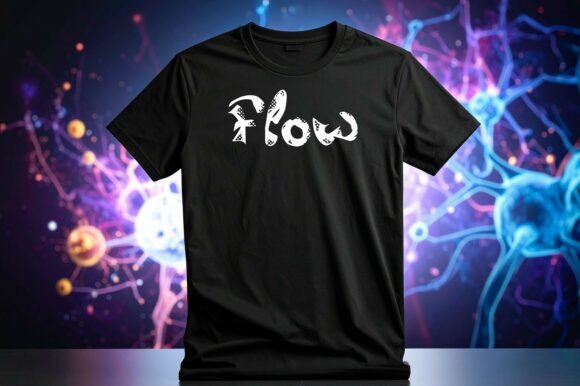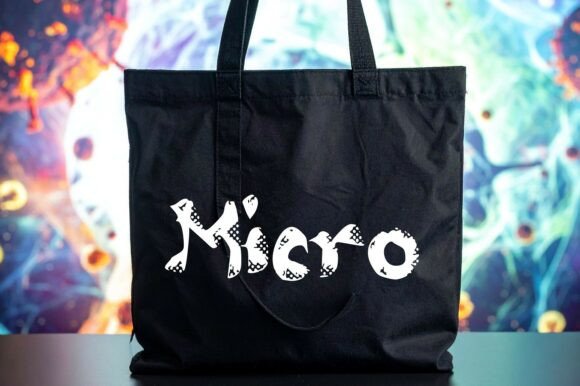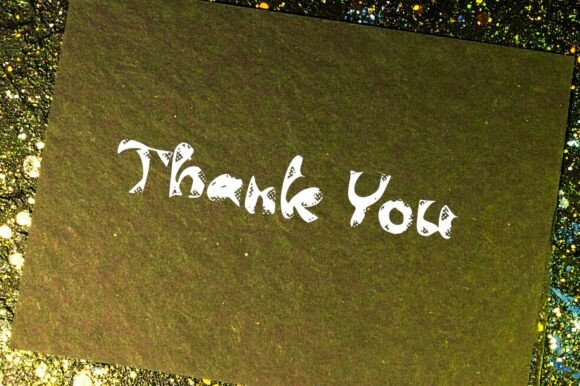
The Beauty of the Wild: Unlocking the Power of the Biological Diversity Font
Imagine yourself standing at the edge of a forest, surrounded by the vibrant songs of birds and the rustling of leaves in the gentle breeze. The intricate patterns of nature’s beauty have always inspired artists and designers alike, sparking creativity and a deep sense of connection to the natural world. This is exactly what the Biological Diversity Font aims to capture – the untamed poetry of the wild, distilled into a stunning brush script that brings life to any canvas.
This unique font is not just a design element, but a partner in conveying the essence of biological shapes and the intricate beauty of the natural world. For designers, the Biological Diversity Font offers a valuable tool to break free from conventional boundaries and add a touch of raw, organic vitality to their work. Whether you’re working on an environmental campaign or a personal blog, this font is sure to inspire and captivate your audience.
Biological Diversity Font Key Features
- Font Family: Biological Diversity Font
- Unique Characteristics:
- Features a unique blend of natural and scientific elements
- Includes a wide range of scientific symbols and icons
- Designed to promote awareness and education about biological diversity
Biological Diversity Font Review
Overall, I’m quite impressed with the Biological Diversity Font. It’s a unique and eye-catching choice for any project that needs to stand out.
- The font’s organic and natural feel is perfect for projects related to science, nature, and the environment.
- The diversity of letterforms and styles within the font make it versatile and interesting to work with.
- The font is well-suited for headings and titles, adding a touch of sophistication and elegance to any design.
- The font may be too busy or overwhelming for smaller text sizes or body text, so use it sparingly.
- The font’s unique style may not be suitable for projects that require a more traditional or conservative aesthetic.
- The font’s diversity can sometimes make it difficult to read at a glance, especially for those with visual impairments.
Overall, I’d give the Biological Diversity Font 4 out of 5 stars. It’s a great choice for designers who want to add a touch of natural beauty to their projects, but it may not be the best fit for every project.
The Biological Diversity Font is ideal for:
1. Creating educational materials and presentations about biodiversity and conservation.
2. Designing logos and branding for environmental organizations.
3. Adding a touch of nature-inspired elegance to your designs.